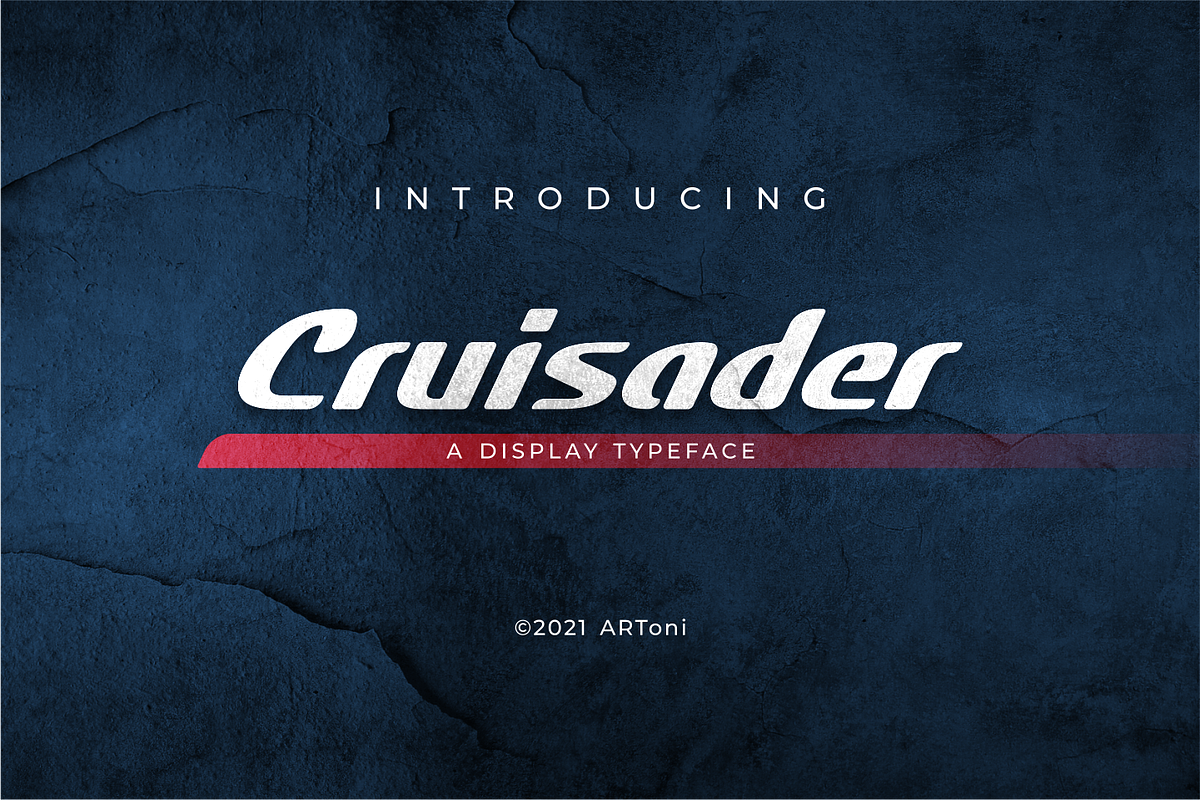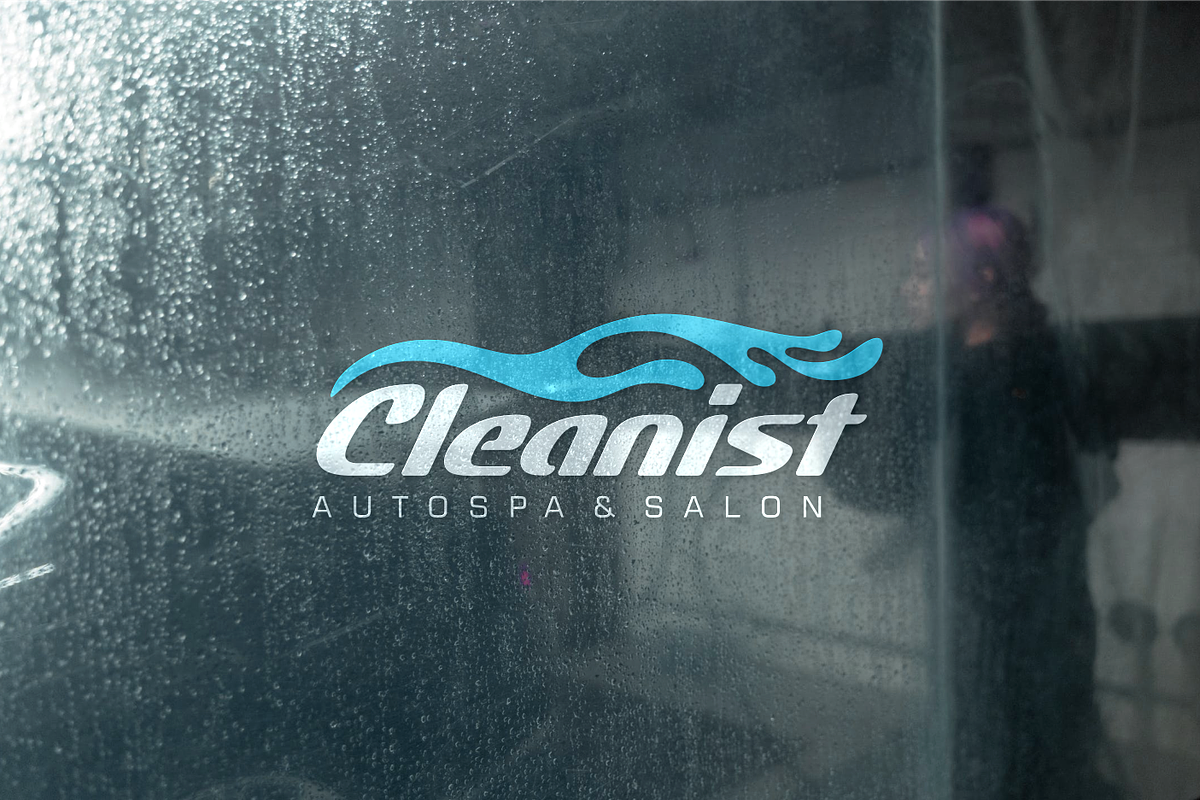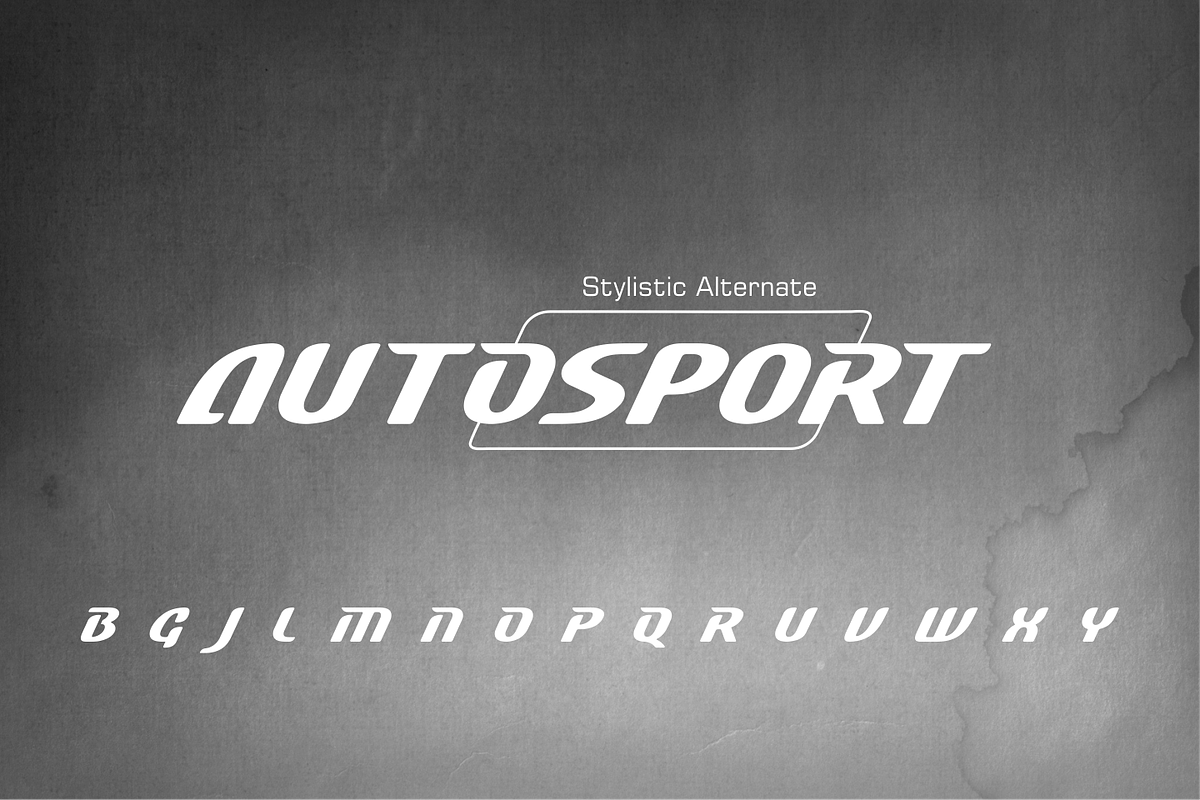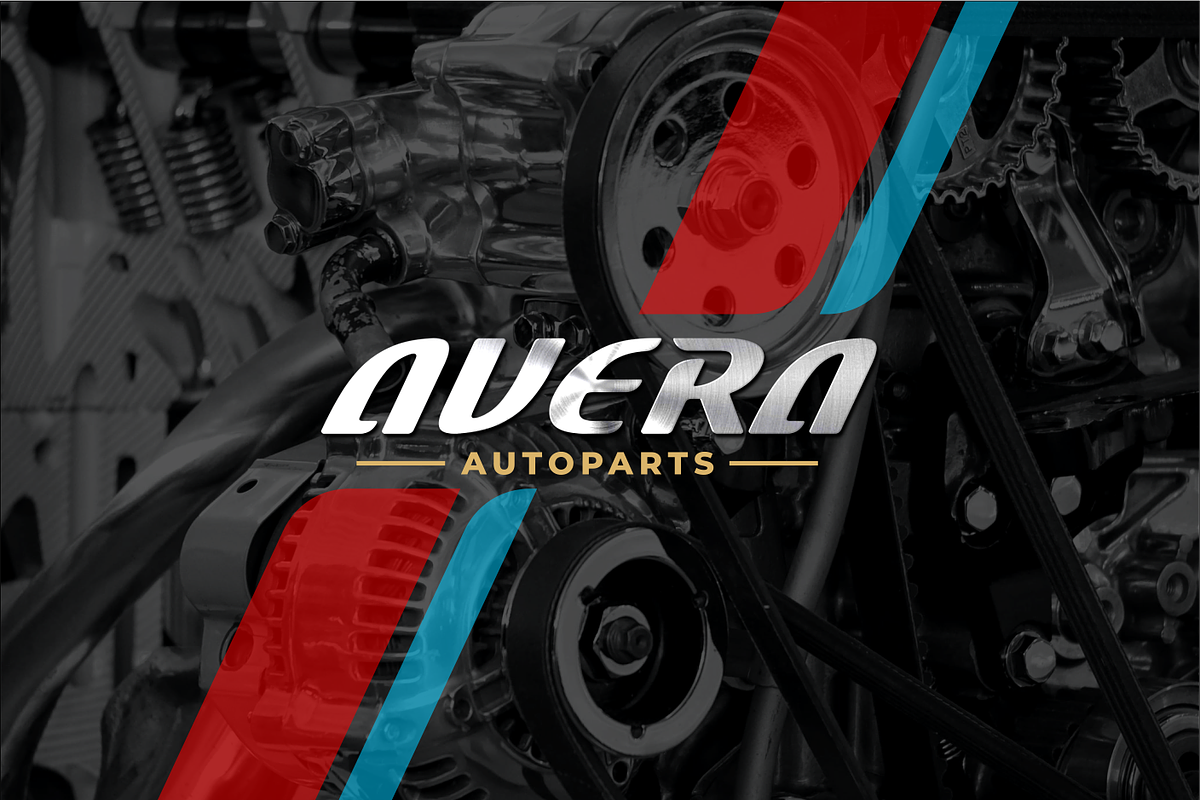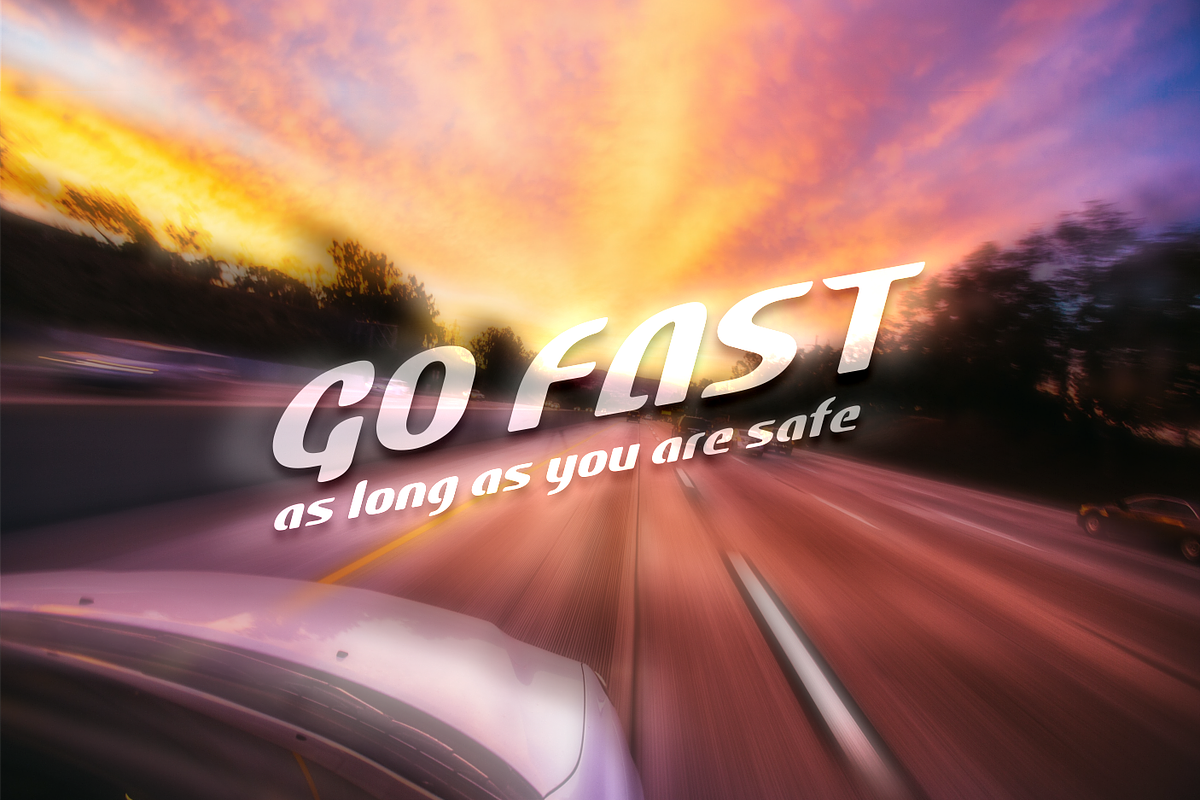
Cruisader
Cruisader is a cool, fresh and modern display font. This font would be ideal for writing web designs, business cards, or pretty much anything else that requires a unique touch.